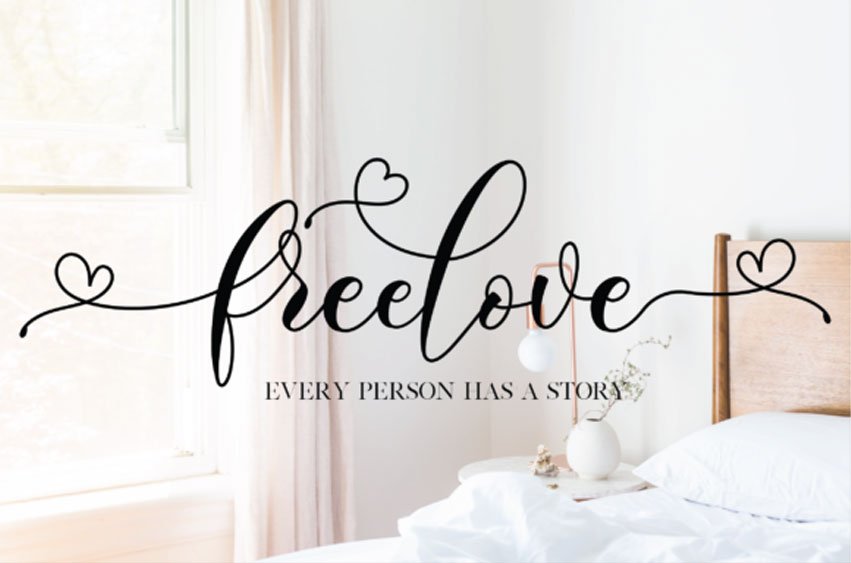
Freelove Font is a beautiful and charming font script that will add a unique flavor to your next craft design.
It fits in headlines, logos, posters, flyers, invitations, name cards, branding materials, print media, editorial layouts, and many more.